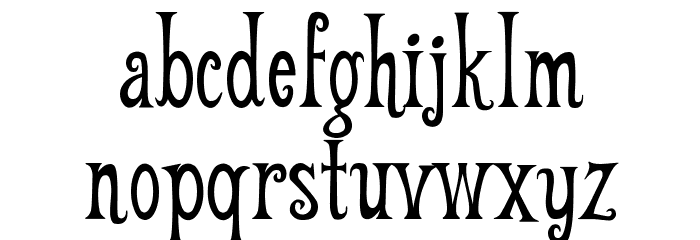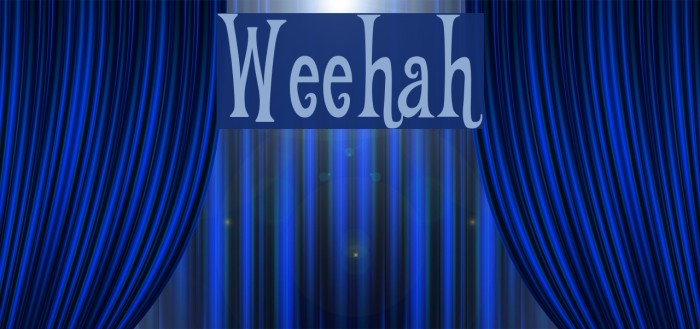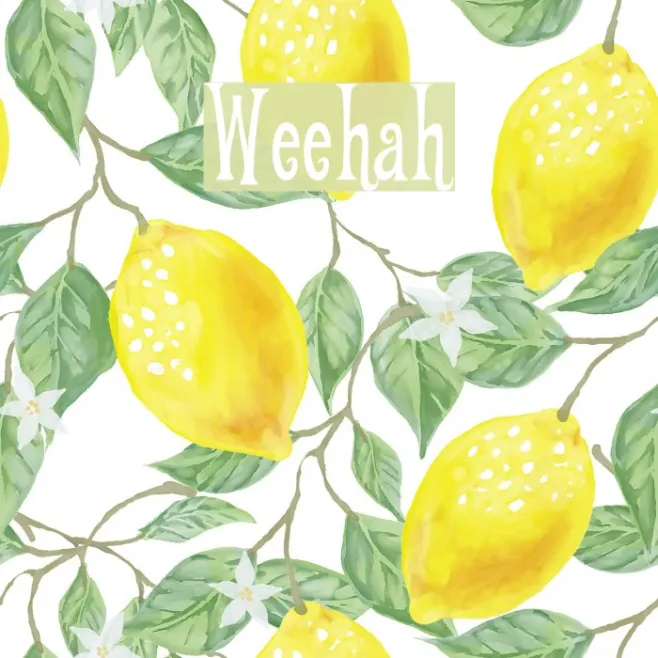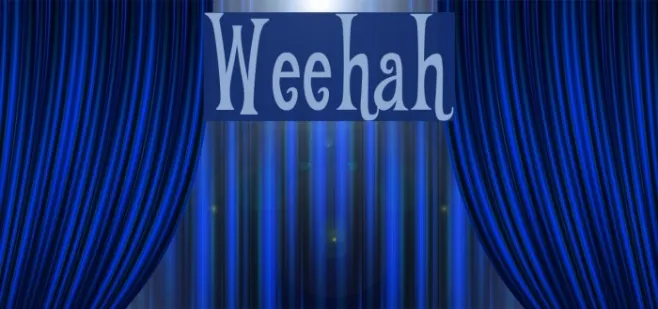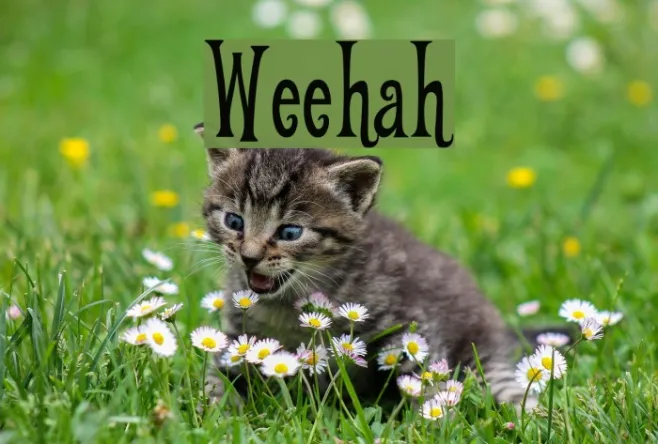
Weehah Font
This font features a whimsical and playful design, characterized by its tall, narrow letters with exaggerated curves and swirls. The uppercase letters have a distinct flair, with some characters like 'Q' and 'R' incorporating decorative loops. The lowercase letters maintain the playful theme with unique, slightly uneven strokes that add to the font's charm. The overall appearance is lively and dynamic, making it suitable for creative and fun projects. The font's style is consistent across both uppercase and lowercase letters, providing a cohesive look.
A whimsical and playful font with tall, narrow letters and decorative curves.
- Proposed Projects: Ideal for children's books, playful branding, party invitations, and creative posters.
- Overall Style: Playful, Whimsical